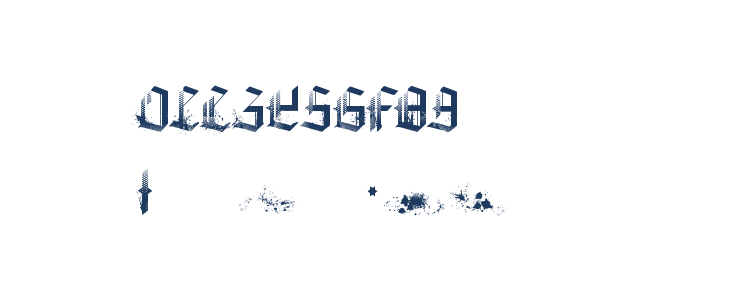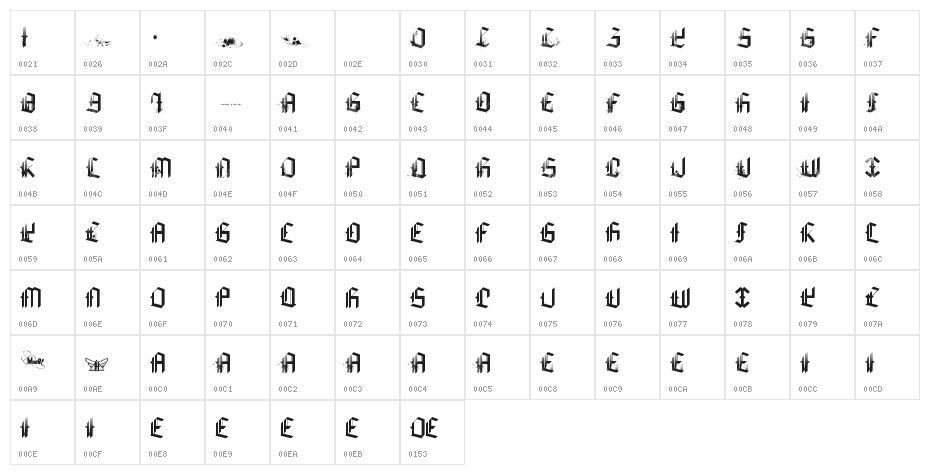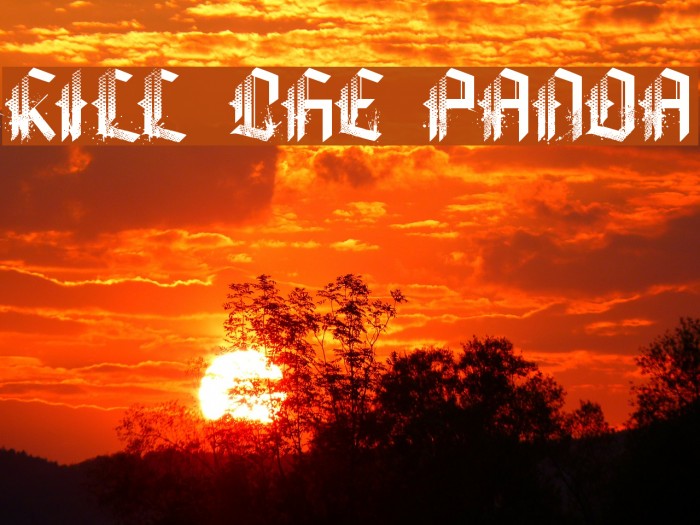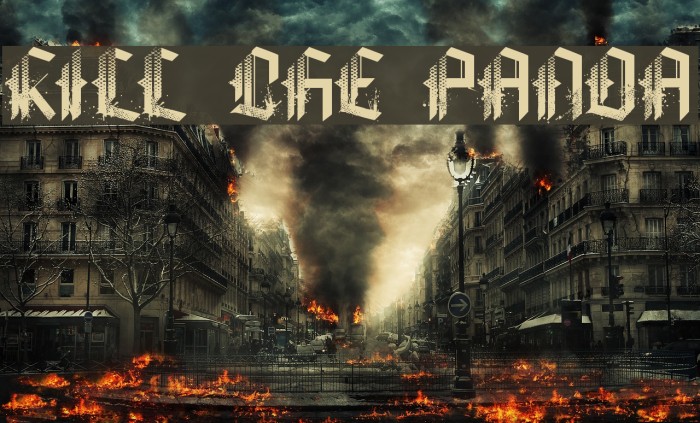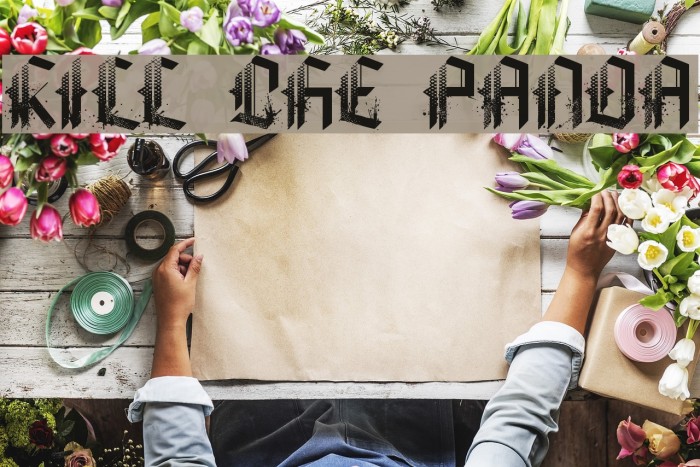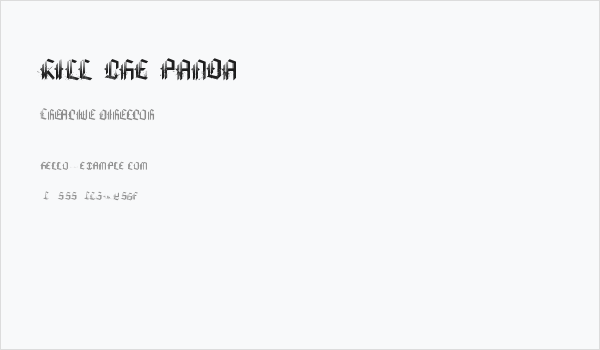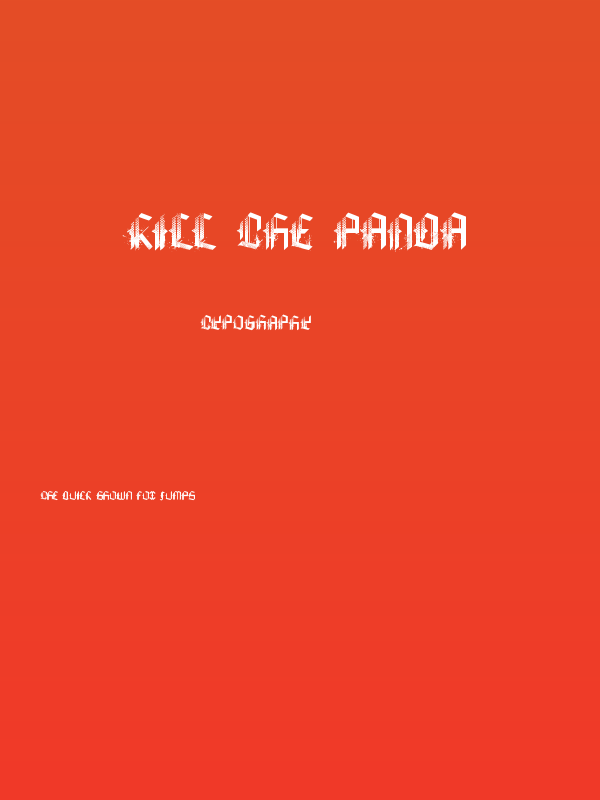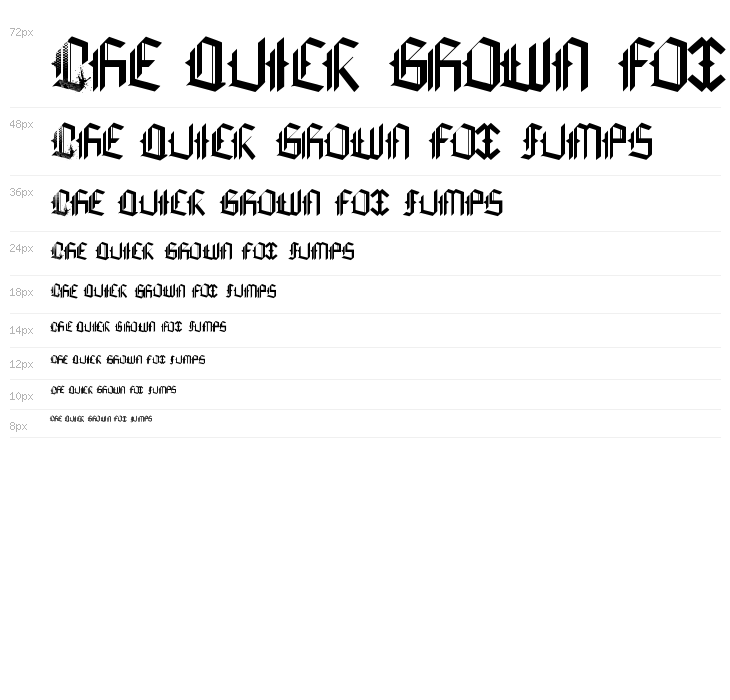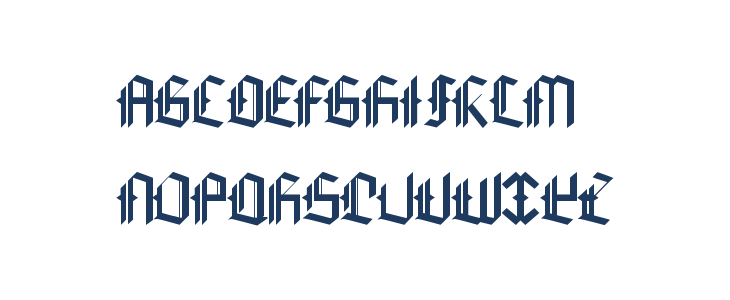
KILL THE PANDA Font
KILL THE PANDA Description
This font features a bold, angular design with a distinct gothic influence, characterized by sharp edges and a dramatic, fragmented appearance. The uppercase and lowercase letters are consistent in style, with a strong emphasis on vertical lines and diagonal cuts, creating a sense of movement and intensity. The numbers and special characters maintain this aesthetic, adding to the font's cohesive look. The use of halftone shading adds a textured, gritty effect, enhancing its edgy and rebellious vibe.
| Overall Style | Modern, Gothic |
| Proposed Projects | Ideal for music album covers, poster designs, and branding for edgy or alternative products. |